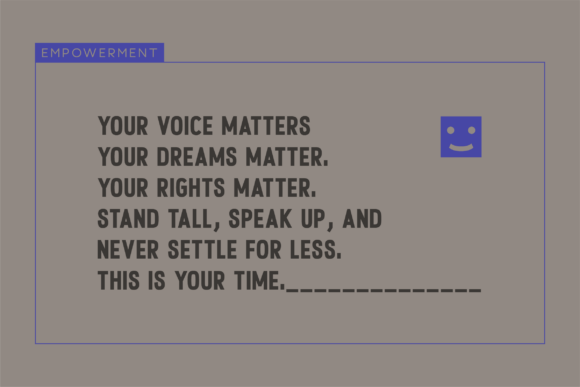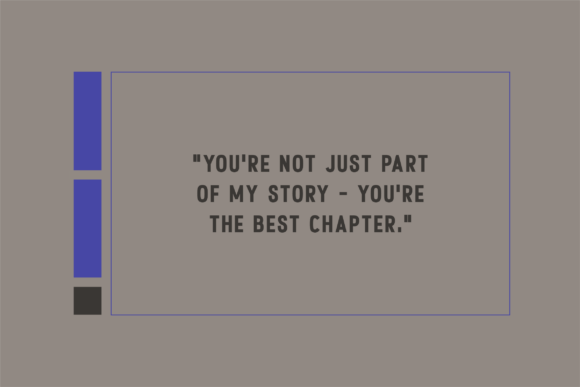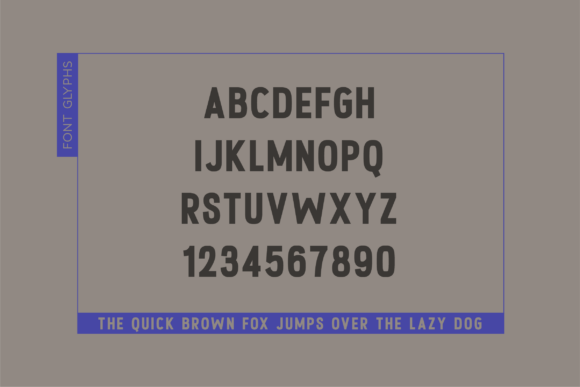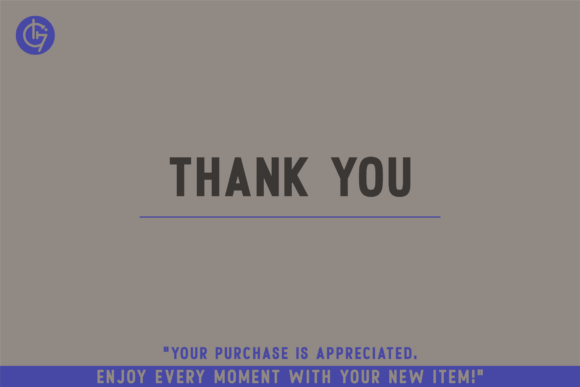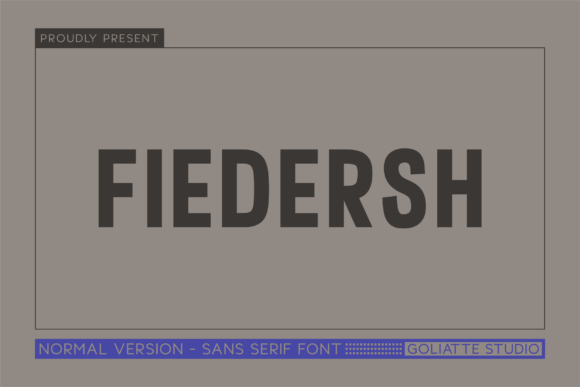
Introducing Fiedersh – A Modern Sans Serif Typeface
In the world of typography, a well-designed font can make all the difference in conveying a message effectively. For modern designers seeking a bold and impactful typeface, Fiedersh is an exceptional choice. This all-caps sans serif font is crafted to exude strength, authority, and professionalism, making it perfect for a wide range of design projects.
Clean Lines and Minimalist Aesthetic
Fiedersh boasts clean lines and a minimalist aesthetic that instantly commands attention. Its sharp, crisp edges give it a confident and professional look, ideal for designers who want to make a statement. The font’s geometric structure ensures versatility, allowing it to be used seamlessly across various mediums, from digital interfaces to high-end branding.
Key Features of Fiedersh
• All-caps design: Fiedersh’s all-caps design ensures maximum impact and clarity, making it perfect for headlines, posters, and anywhere you need your message to stand out.
• Modern and minimalist style: The font’s modern, minimalist style focuses on readability, making it easy to use for both large-scale headlines and smaller text blocks.
• Bold and clean lines: Fiedersh’s bold, clean lines convey confidence and professionalism, making it an excellent choice for branding, logos, packaging, and digital design.
Perfect for Designers and Brands
Fiedersh is designed with the modern designer in mind. Its versatility and impact make it an excellent choice for:
• Branding and logos: Create a lasting impression with Fiedersh’s bold and confident design.
• Digital design: Use Fiedersh to elevate your website, social media, or digital advertising with its clean and modern aesthetic.
• Print material: Make a statement with Fiedersh in your print projects, such as brochures, flyers, or posters.
Why Choose Fiedersh?
In a world where typography plays a crucial role in communication, Fiedersh stands out as a exceptional choice for designers and brands. Here are just a few reasons why:
• Readability: Fiedersh’s all-caps design and clean lines ensure excellent readability, even at smaller font sizes.
• Versatility: Use Fiedersh across various mediums, from digital to print, without compromising on style or impact.
• Professionalism: Fiedersh’s bold and confident design conveys professionalism and authority, making it perfect for brands and agencies.
Fiedersh is a modern sans serif typeface that is sure to make a statement in any design project. Its bold, all-caps design, clean lines, and minimalist aesthetic make it perfect for designers and brands seeking a font that exudes strength, authority, and professionalism. With its versatility and impact, Fiedersh is an excellent choice for a wide range of applications, from branding and logos to digital design and print material.